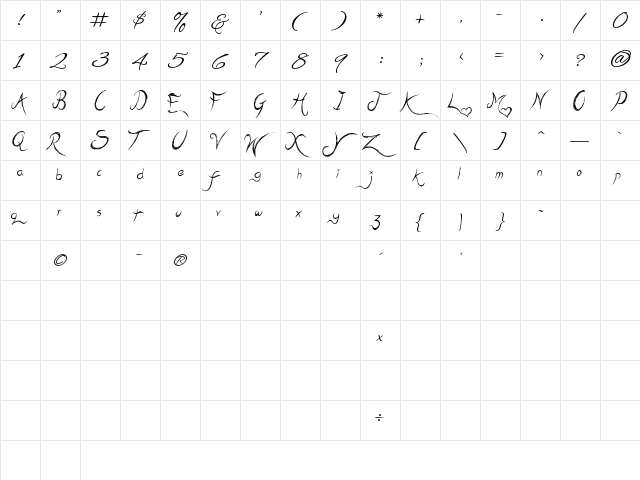
Mehak Sharma Regular
Design Context for Mehak Sharma Typeface
Mehak Sharma is a composed and adaptable typeface that performs quietly and consistently across a wide range of design contexts.